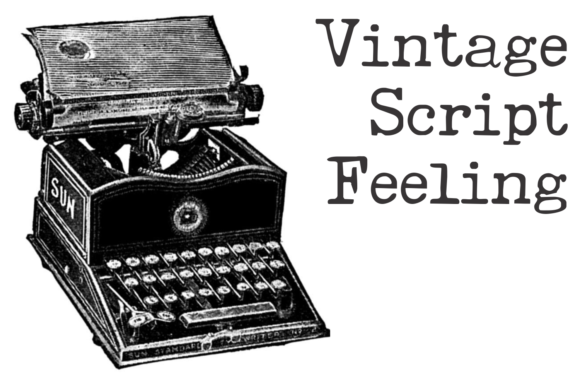
Remington Weather is a distressed typewriter font, great for mimicking the distressed and sloppy ink effect of older typewriting machines. This display font will add some edge to your projects!